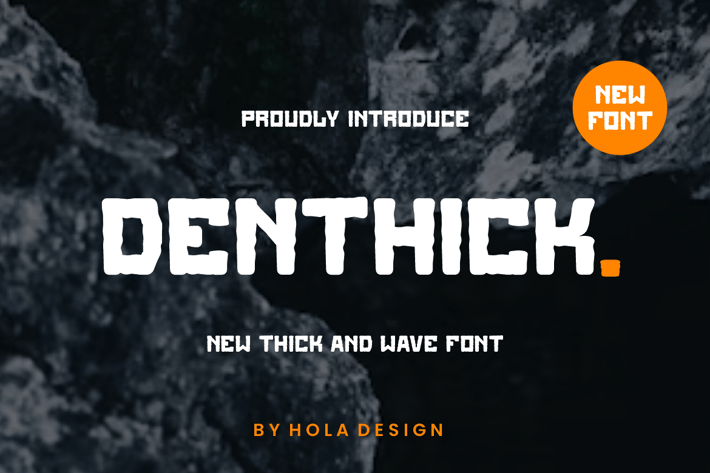
Denthick - Brush Wave Font
Denthick - Grunge Font Font is unique . Ready to use for your design like labeling, movie sceen, poster, movie title, gigs, album covers, logos, and much more.